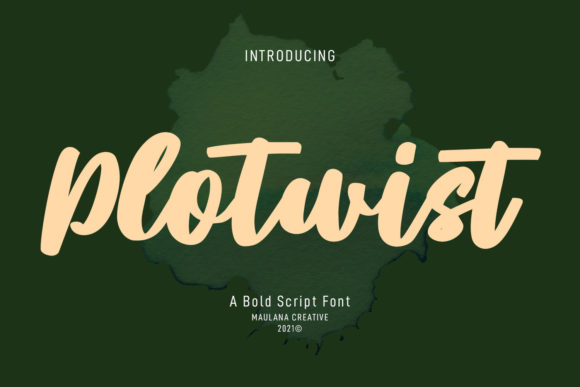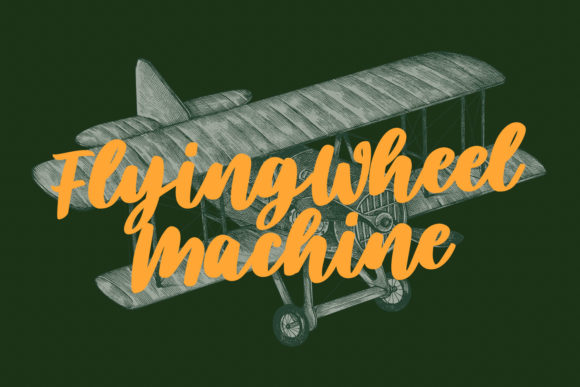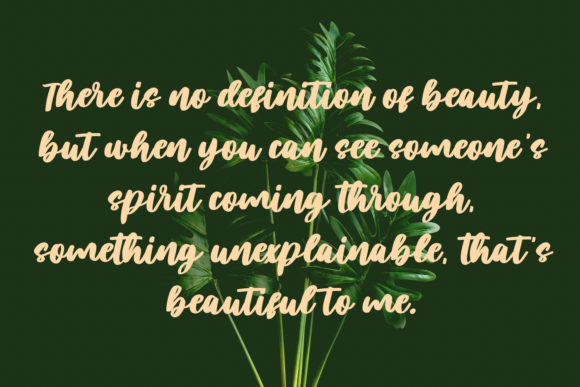
About Plotwist Font
Plotwist is a beautiful, paint brushed handwritten font. This lovely font will effortlessly turn any design project into a stand out!